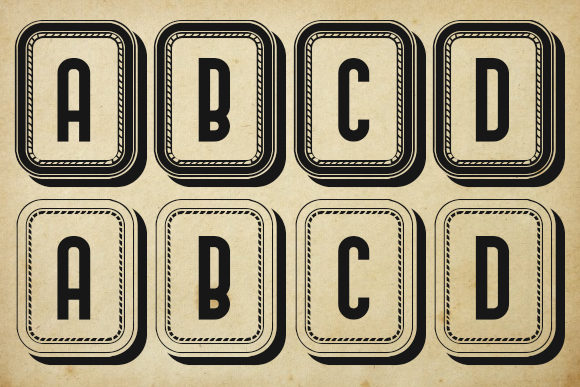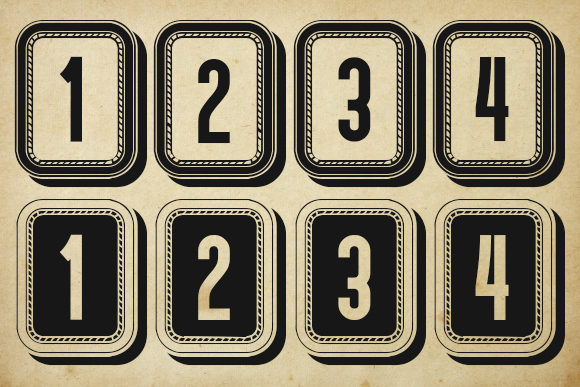
Introduction to Schwarzenberg Capitals Font
Schwarzenberg is a bold and powerful all capitals letter font.
It comes in Regular, Hollow and Negative .
Key Features of Schwarzenberg Capitals Font